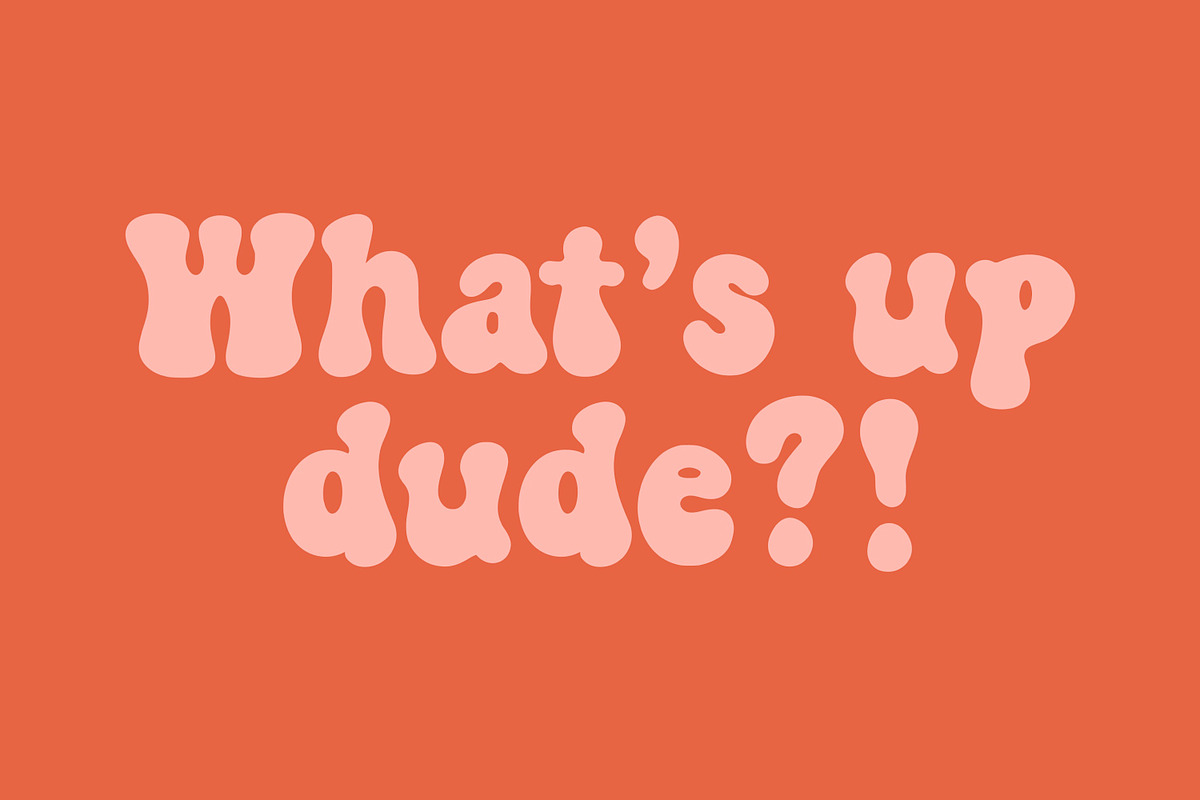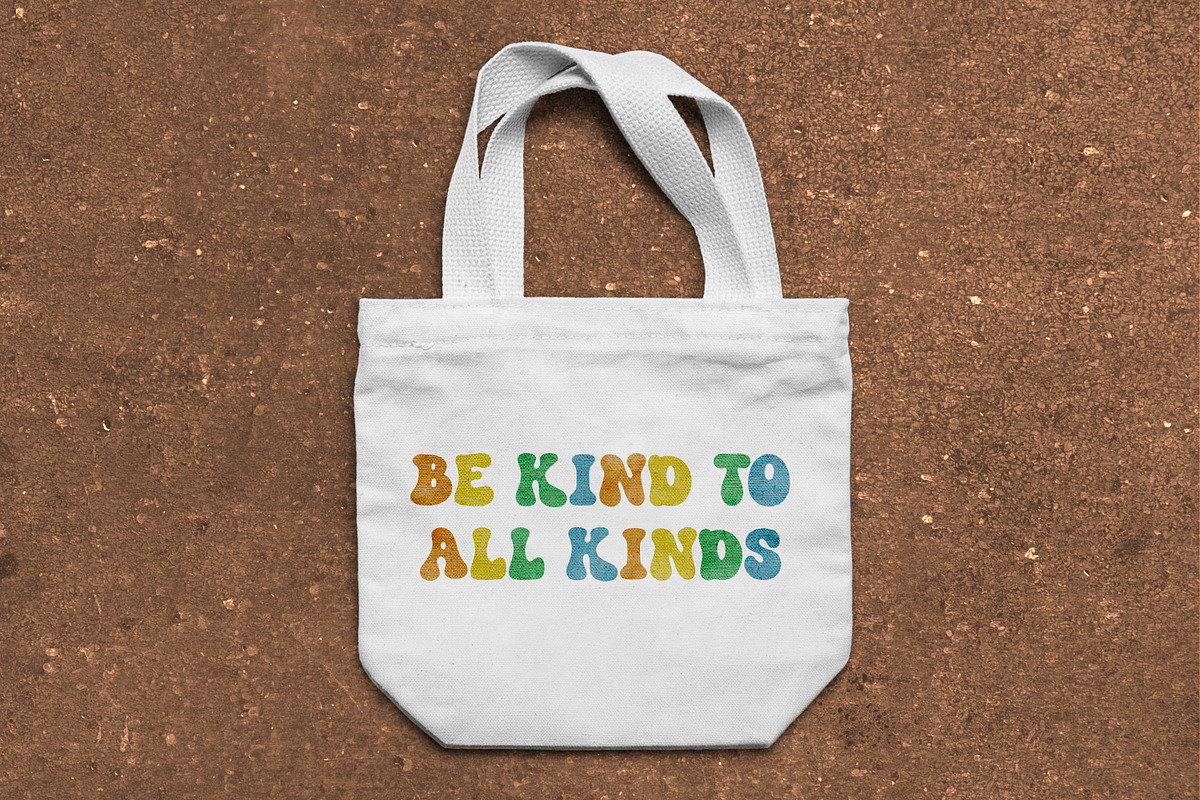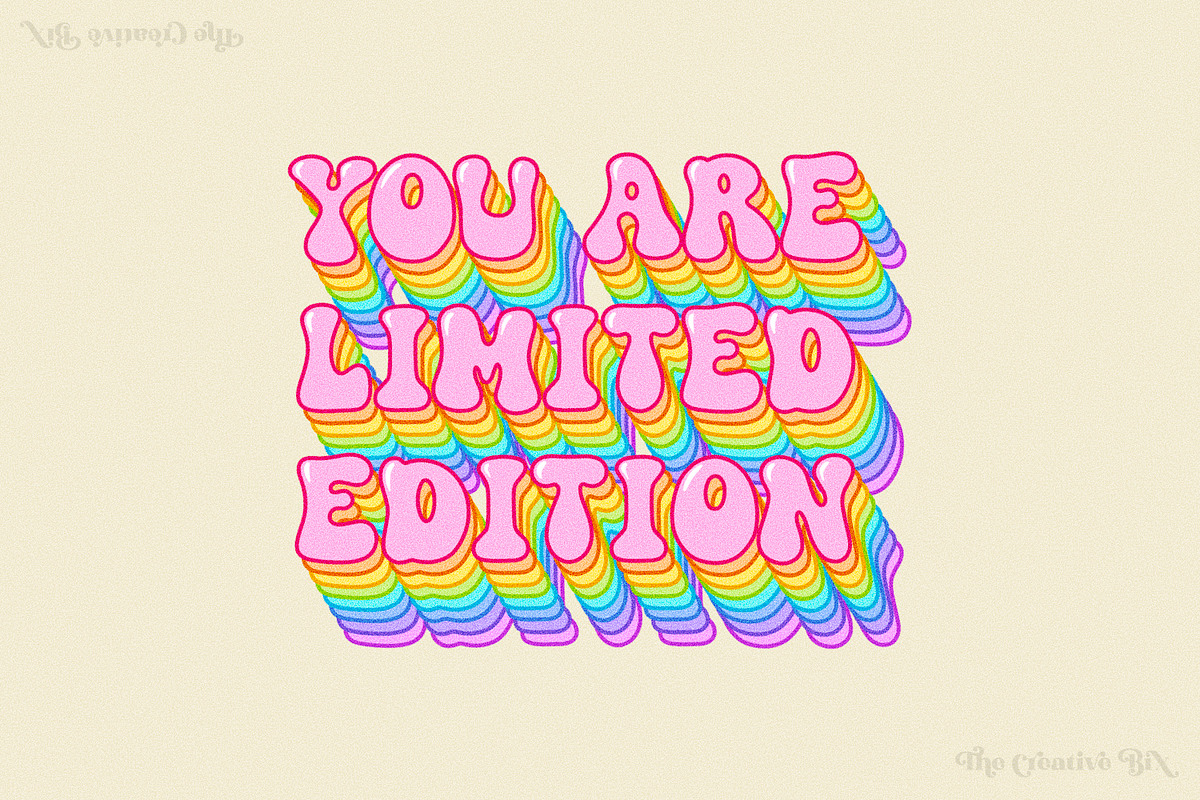
Lava Lamp Font
Lava Lamp is a retro, groovy font perfect for branding, posters, t-shirts, stickers, wall art, and any design you can think of.
Lava Lamp Display Font